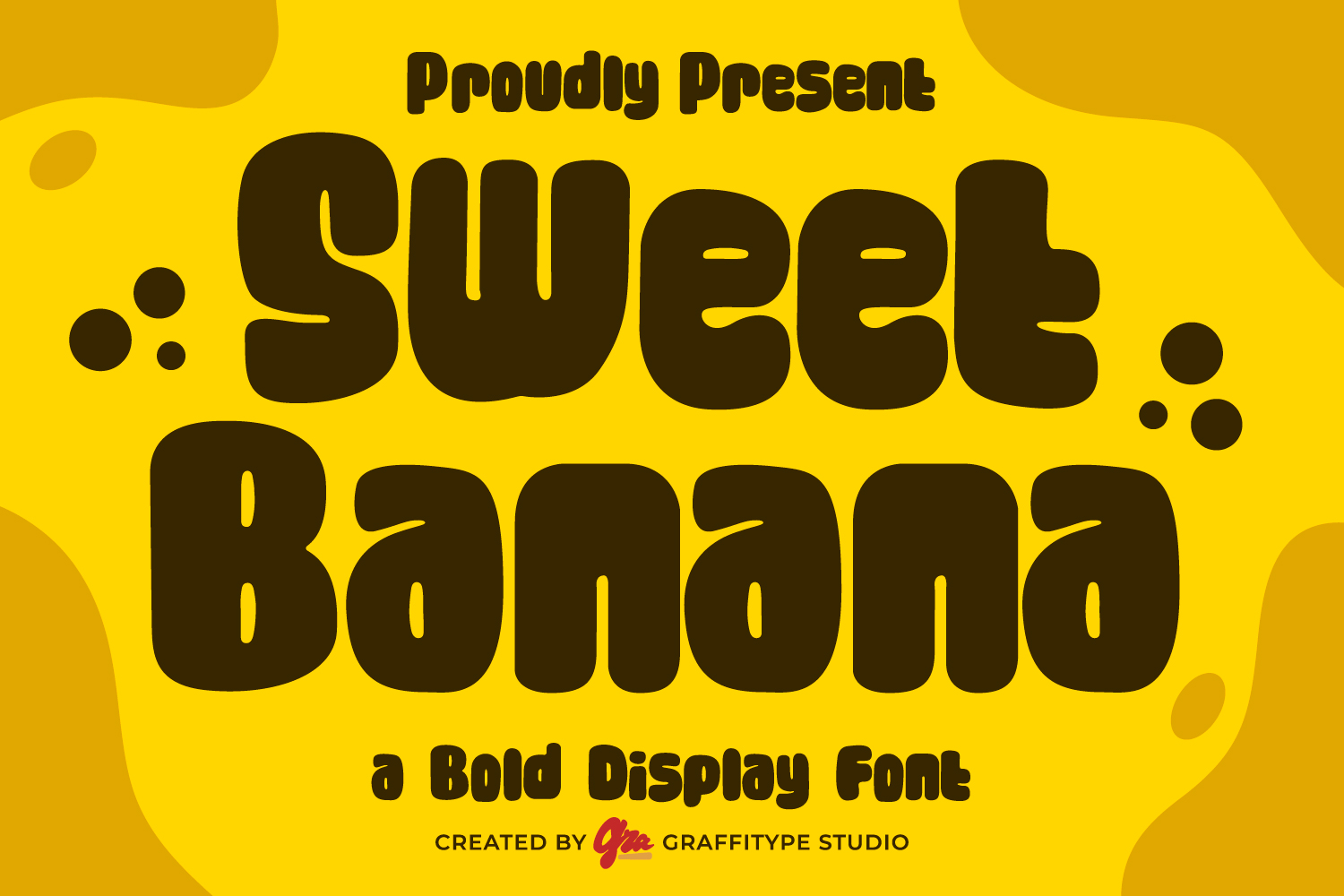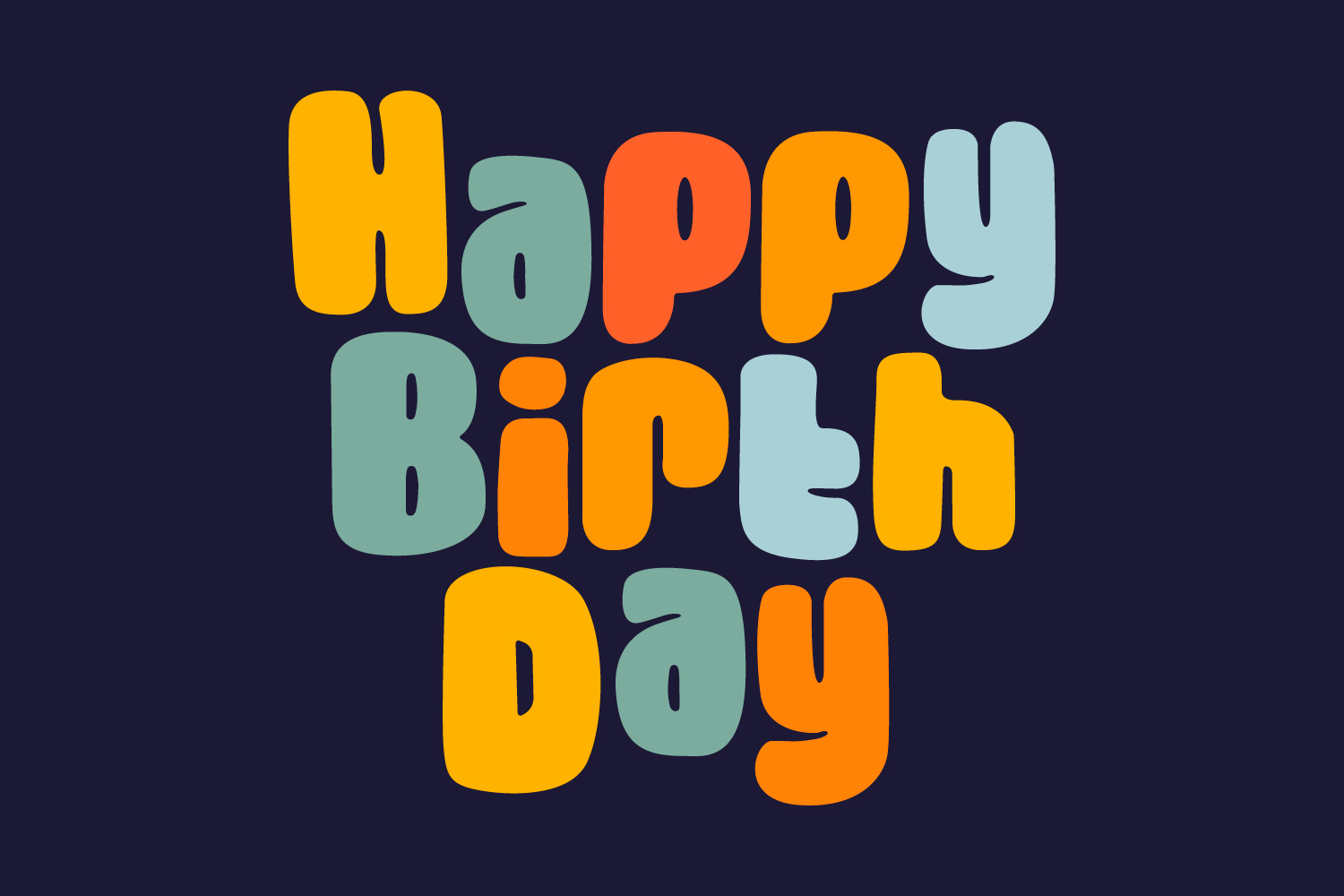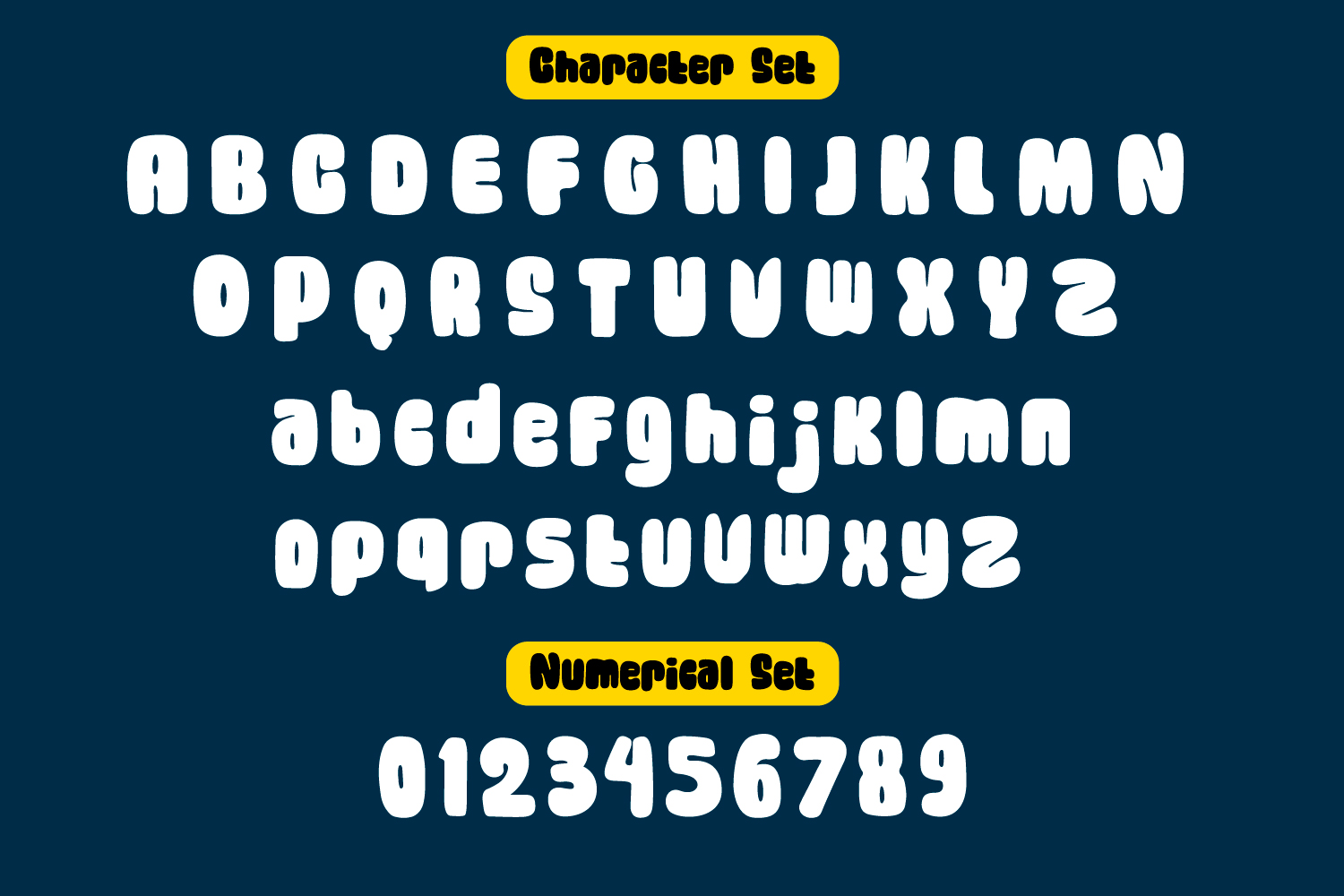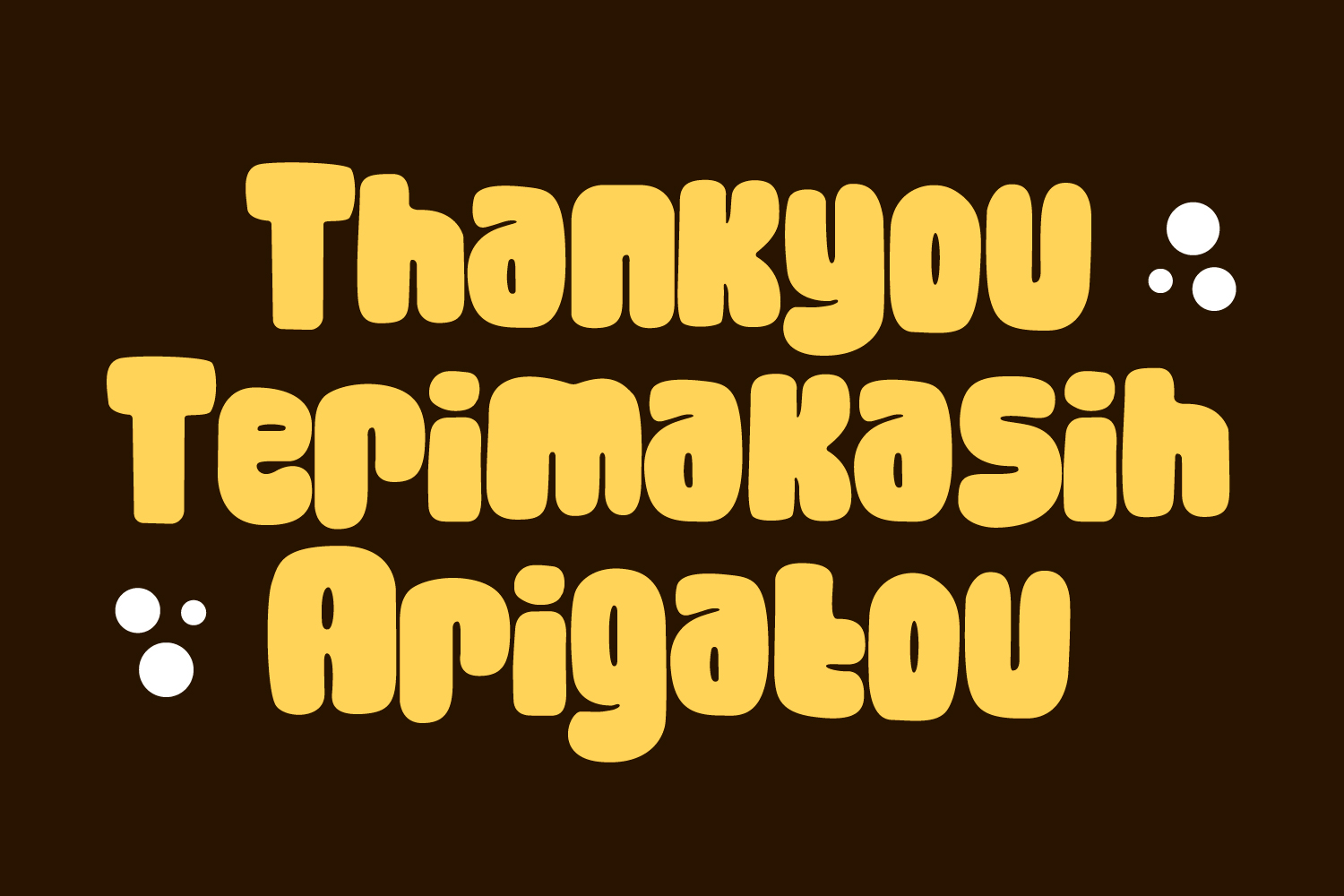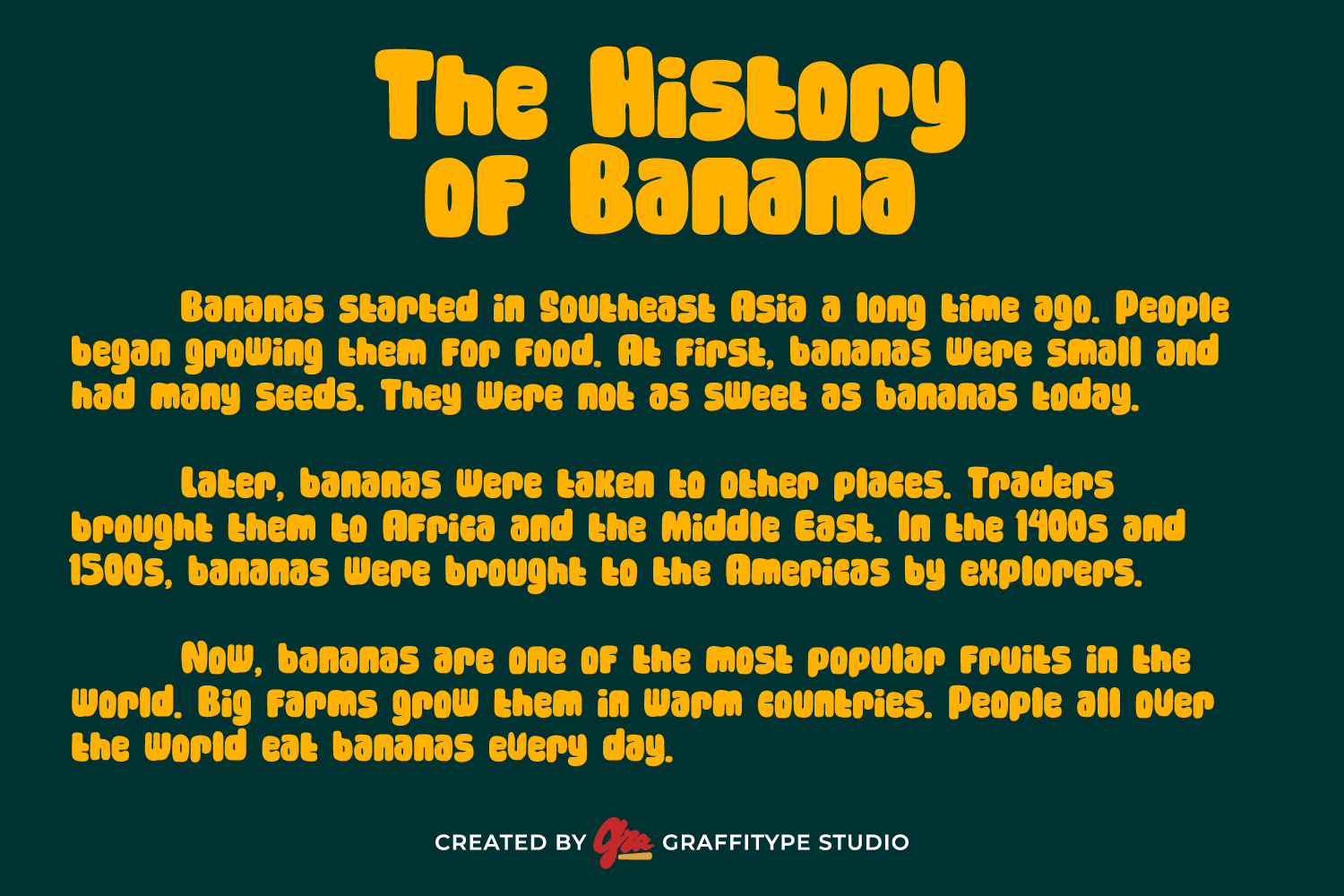
Sweet Banana
Sweet Banana is a bold and striking display font that blends assertive structure with soft, rounded edges. Its thick strokes and smooth curves create a strong visual impact while maintaining a friendly, approachable tone. Perfect for headlines, branding, and creative design projects, Sweet Banana delivers a balance of confidence and charm, making any message stand out with style and personality.
Sweet Banana is a bold and rounded display font designed to make a statement. With thick strokes and smooth, curved terminals, it radiates strength while maintaining a playful and approachable character. Its confident structure and friendly softness make it ideal for conveying both power and warmth in visual communication. Whether used in headlines, logos, posters, or packaging, Sweet Banana ensures your message captures attention instantly.
As a display font, Sweet Banana is crafted specifically for larger sizes where its bold personality can truly shine. It’s not intended for long body text, but rather for moments that demand impact — from eye-catching titles and callouts to expressive typographic compositions. Its unique blend of geometric boldness and rounded charm adds personality and memorability to any design it’s featured in.